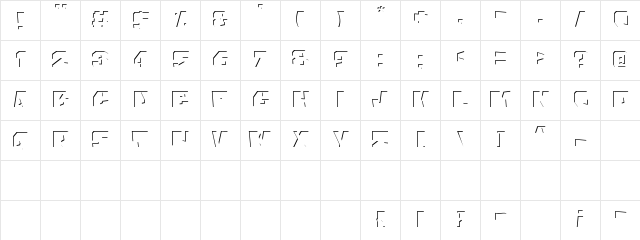
Cracked stone Inner Regular
Design Context for Cracked stone Inner Typeface
Cracked stone Inner is a composed and adaptable typeface that performs quietly and consistently across a wide range of design contexts.